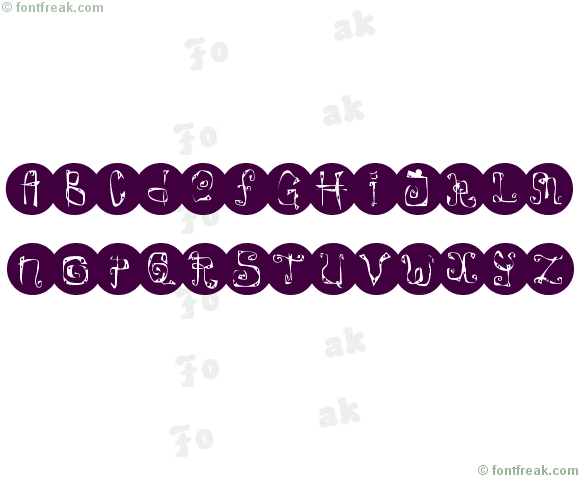
FE-Caterpillar
About FE-Caterpillar
The FE-Caterpillar font by Font Environment is a whimsical display typeface that captures the essence of playful creativity. This unique font falls into the decorative category, making it ideal for projects that require a touch of charm and personality. With its distinctive, rounded shapes and intricate, curvy strokes, FE-Caterpillar presents a delightful contrast between thick and thin lines, offering a visually engaging experience. The spacing is thoughtfully designed to enhance readability while maintaining an artistic flair, making it suitable for both headlines and body text.
The FE-Caterpillar font shines in various use cases. It is perfect for designing eye-catching wedding invitations, where its playful elements can convey a sense of joy and celebration. Additionally, it works wonderfully for children's book covers or educational materials, where engaging visuals are essential to capturing young readers' attention. Restaurant menus can also benefit from its unique character, adding a fun twist that can enhance the dining experience. Furthermore, this font is an excellent choice for party flyers or promotional materials, where a light-hearted tone is desired.
What sets the FE-Caterpillar font apart is its ability to blend fun with functionality. Its quirky design elements and balanced structure make it not only visually appealing but also practical for a range of applications. With the FE-Caterpillar font free download, you can elevate your design projects and add a unique touch that resonates with your audience.